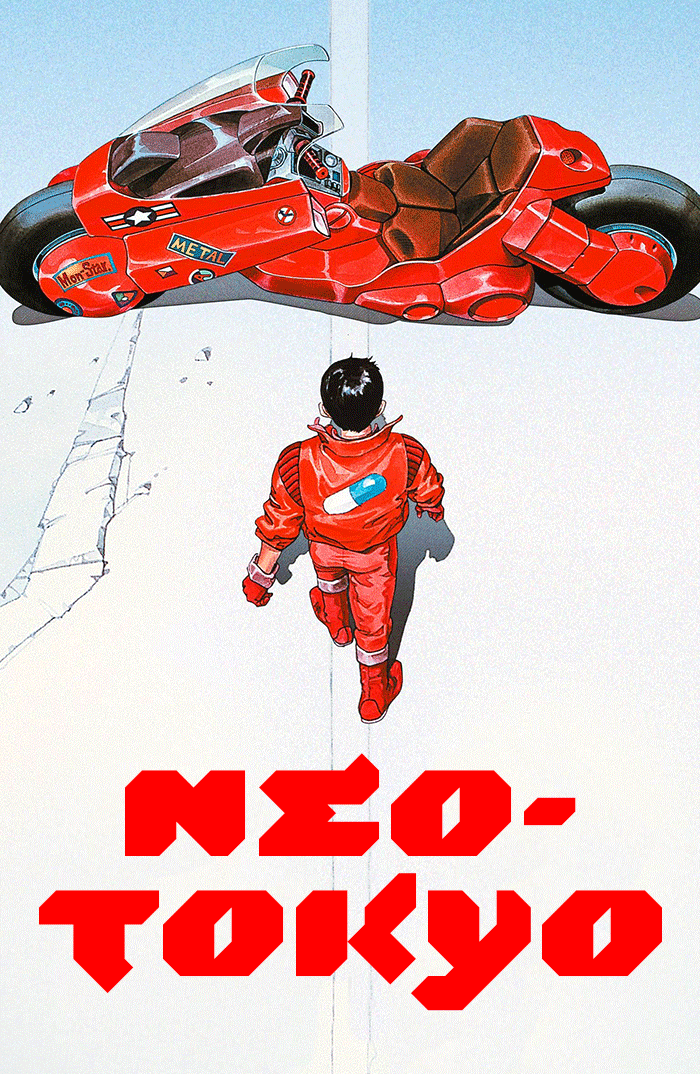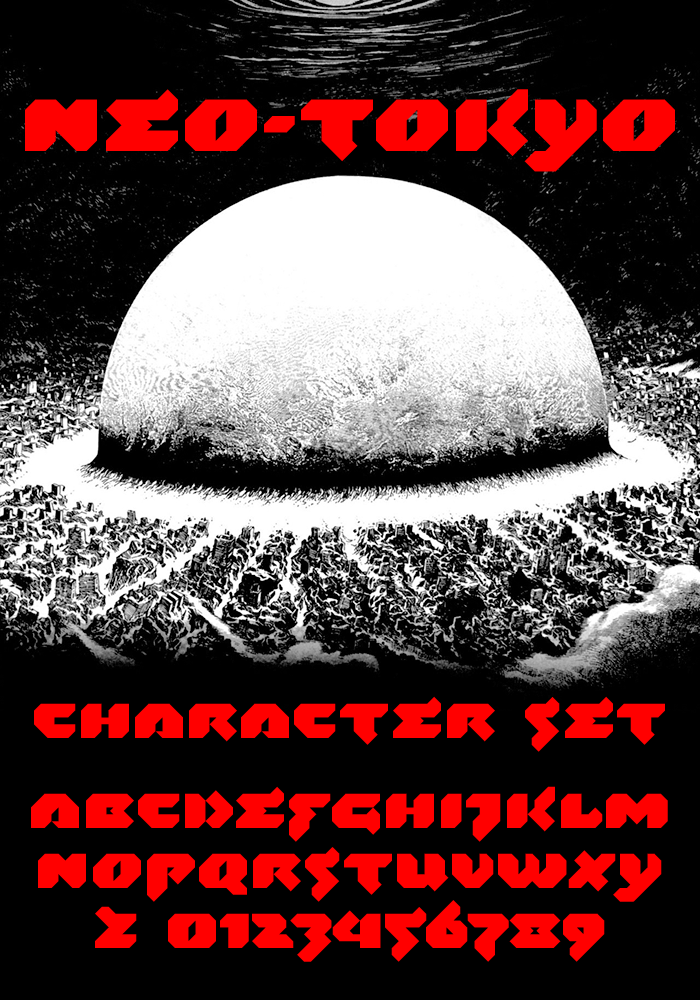
• This font was inspired by the Japanese post-apocalyptic cyberpunk animation, Akira (1988). The convoluted story is set in a dystopian future, in a large megacity: Neo-Tokyo.
Unfortunately, I could not finish the Katakana characters, but the Latin alphabet was designed to reflect the style of the Japanese letters.
Cool! I love the aesthetics of Akira.
a cool font. designed to look great in huge sizes on huge billboards on huge skyscrapers. But I think spacing should be much smaller.
really cool stuff
Very befitting of the movie.
I love Akira and I love this font because cacht all their flavour. About Akira, the really-really amazing are the quality of the cinematographic planification and handmade drawings of the pages from the original manga (written and drawn by the great and superb japanese comic artist Katsuhiro Otomo between 1982-90). I was flashed when it was published in Spain in 1990. Instant love forever, 10/10.
Too bad you didn't have time for more, very attractive, better than the poster art.  I saw Akira in the theatre way back when :)
There is something very appealing about these bold characters with their little counters, each with their own personality but working so well together as a font.